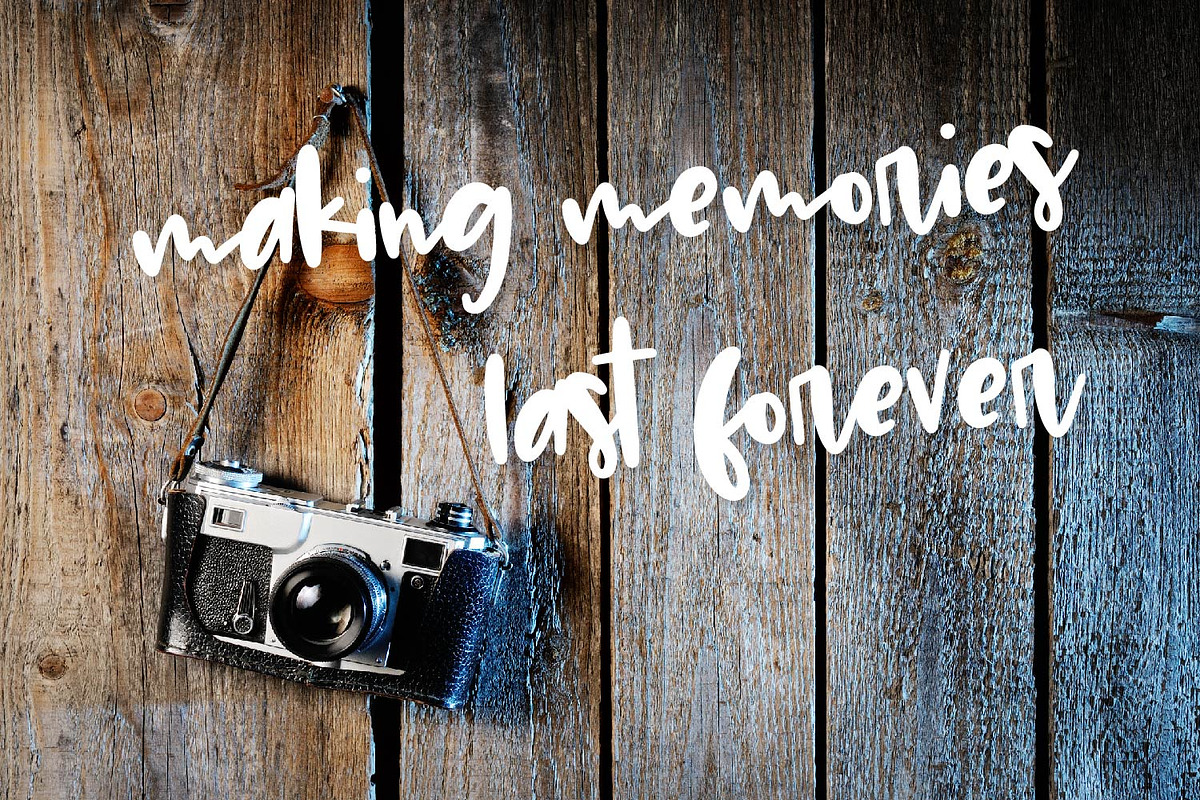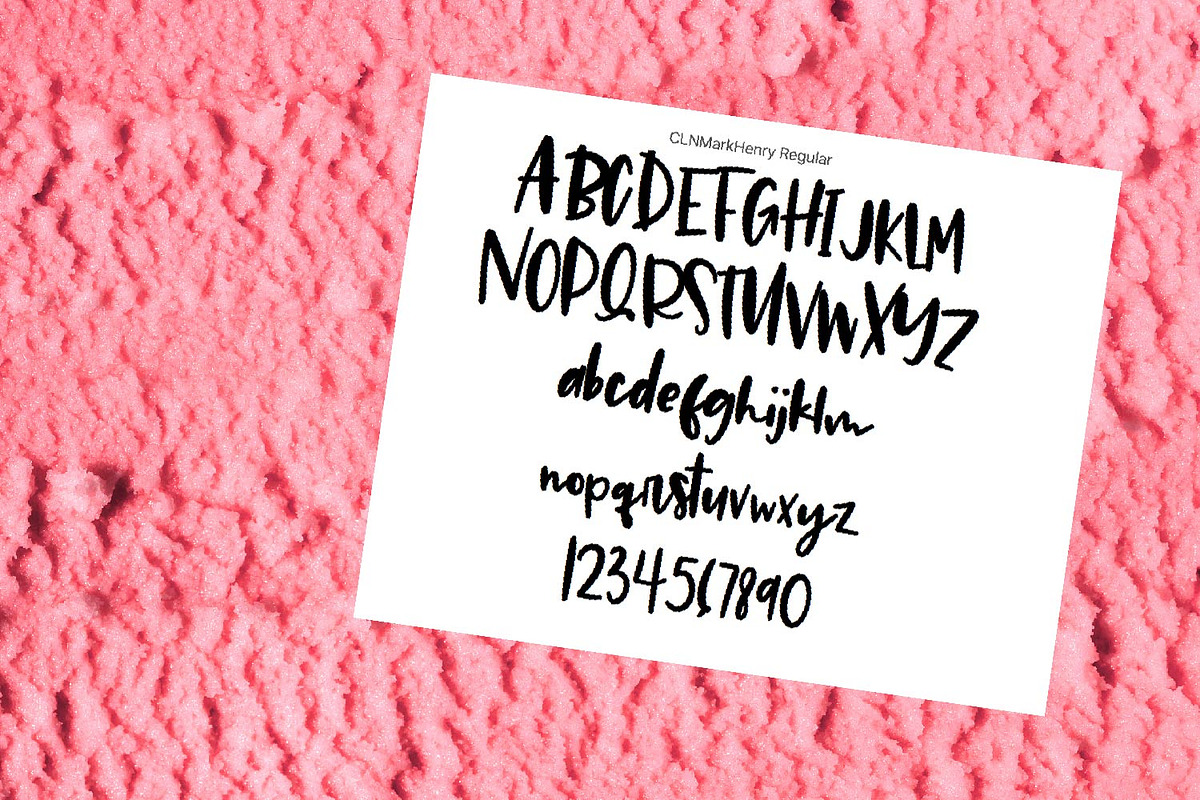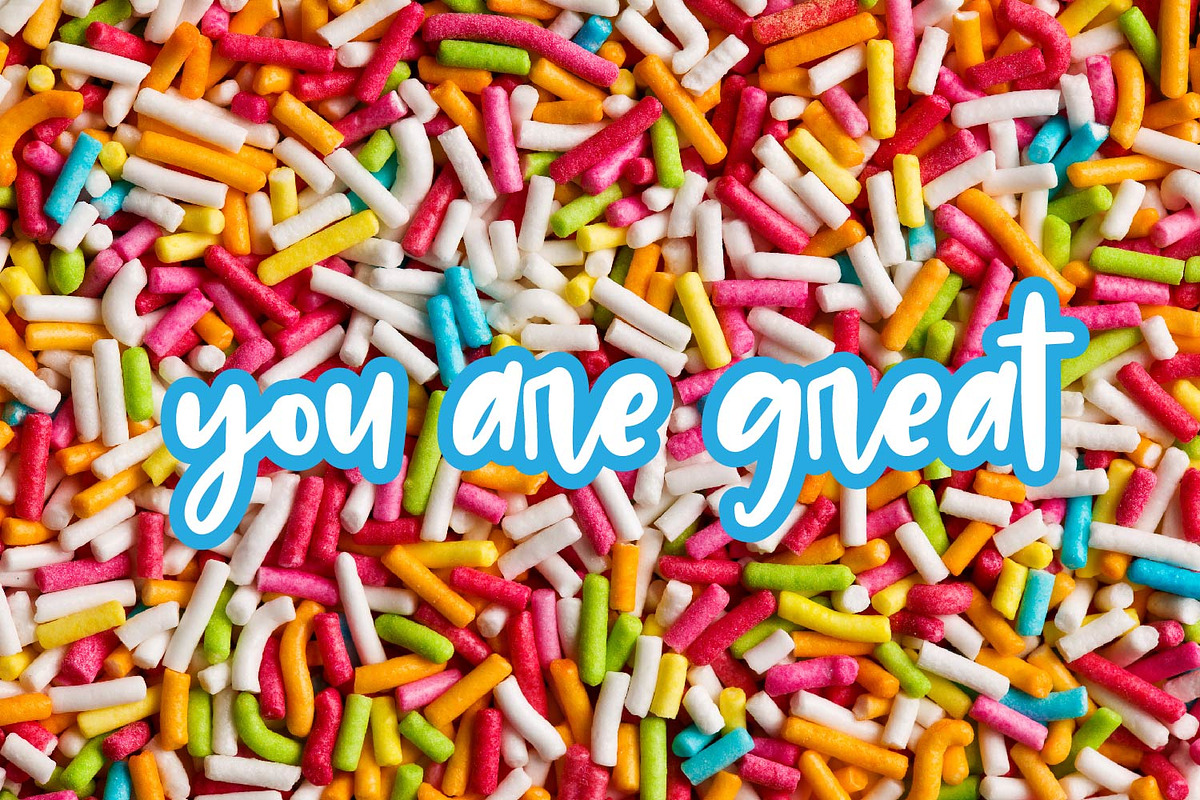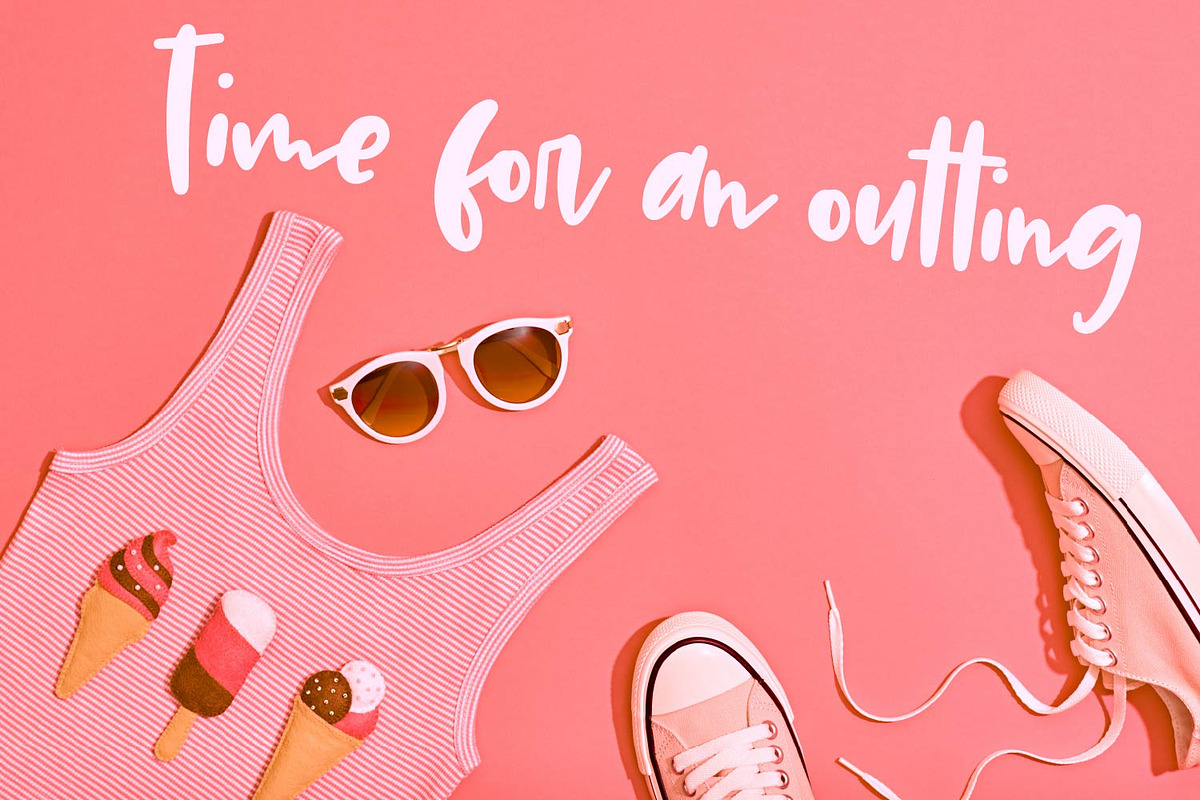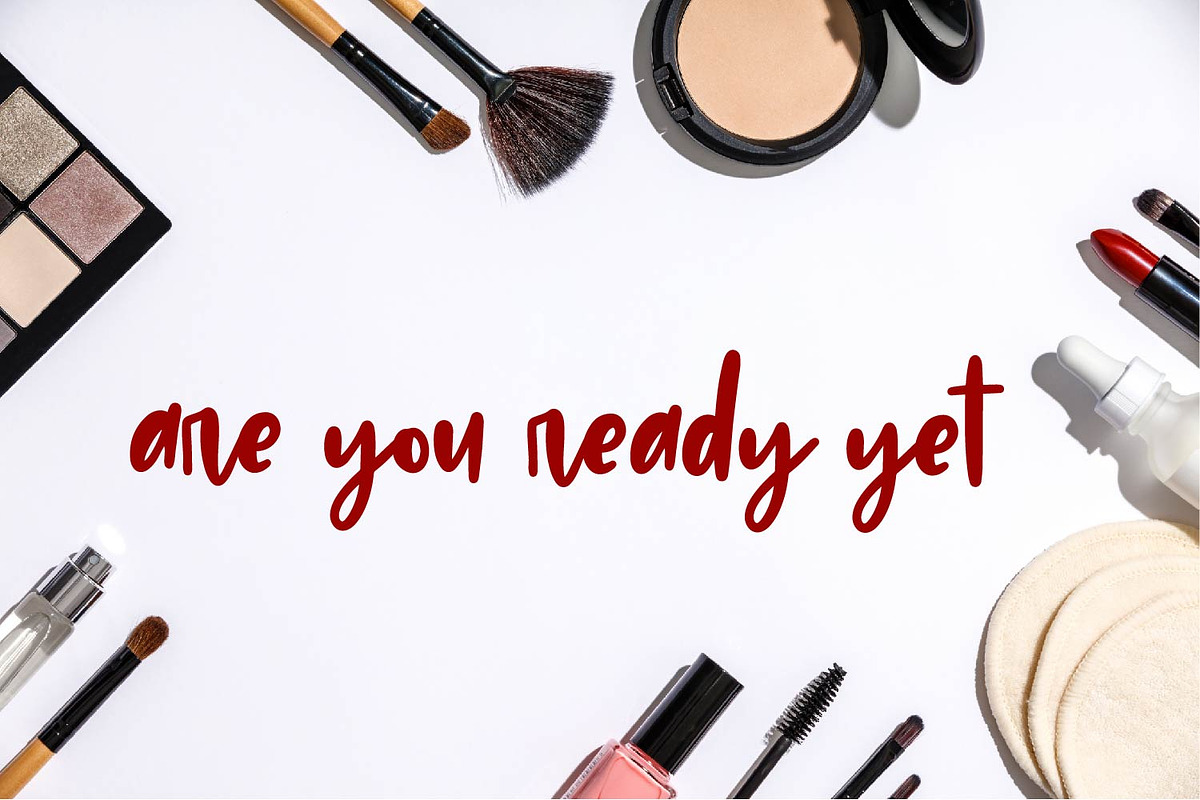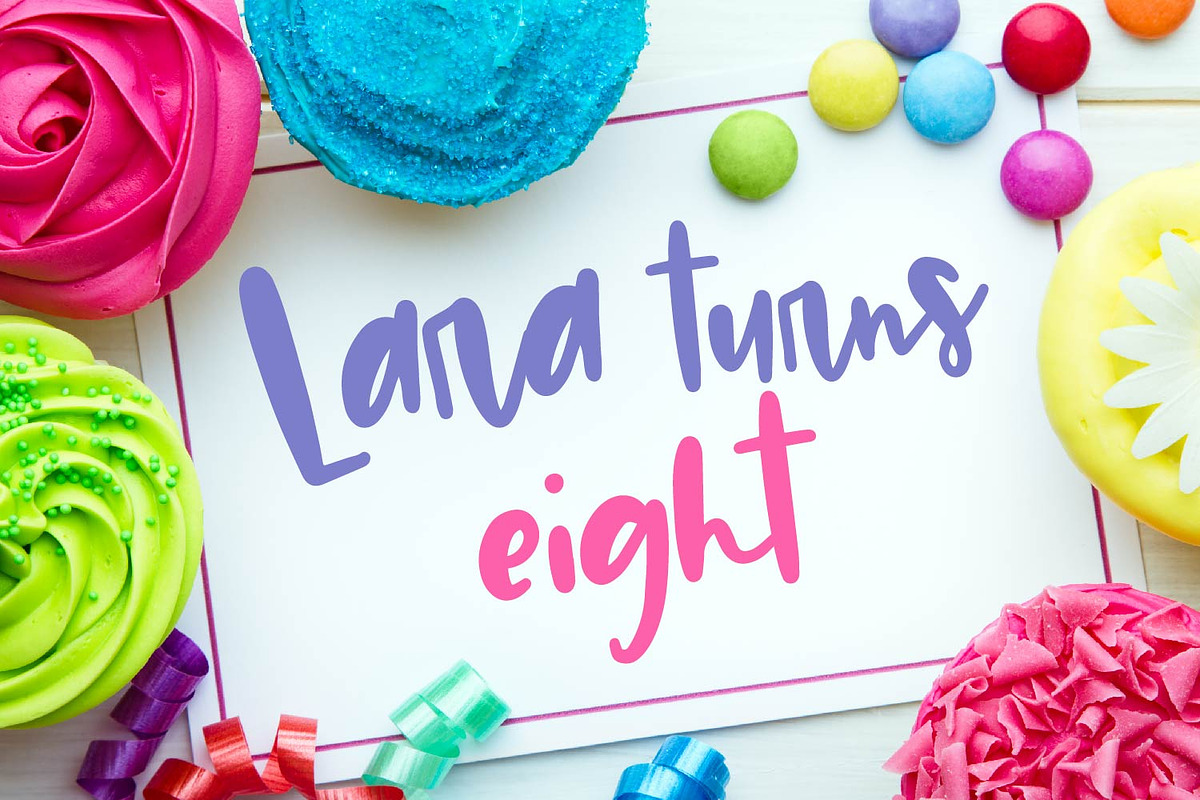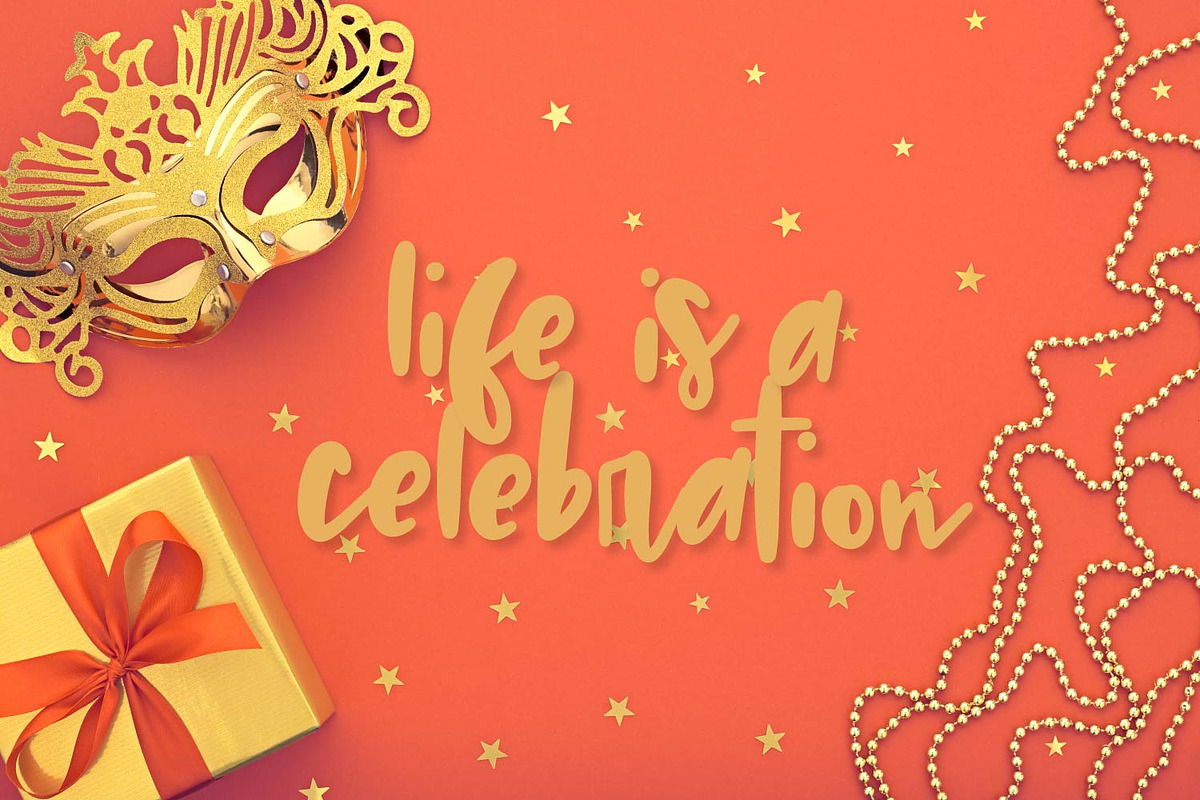
Mark Henry - A Hand Lettered Font
Mark Henry A Hand Lettered Font by CraftyLittleNodes is a font selected for branding, posters, packaging, typography.
Mark Henry - A Hand Lettered Font by CraftyLittleNodes fits naturally into Branding, posters, packaging, typography.